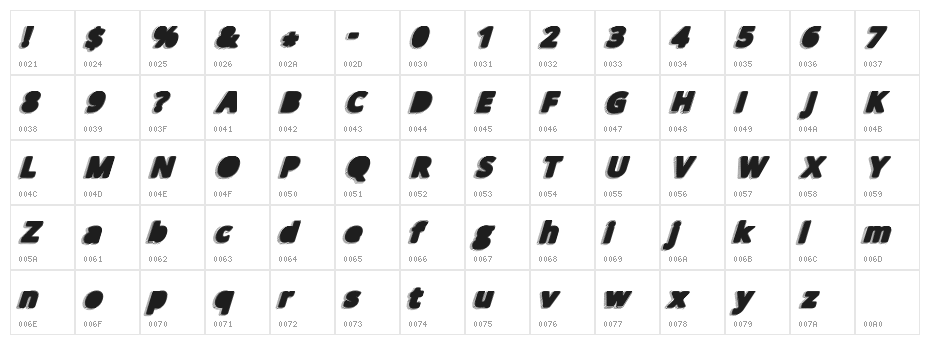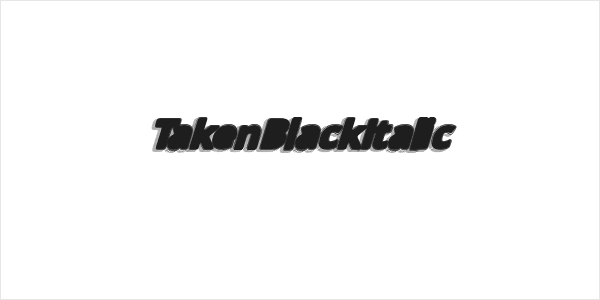
TakenBlackItalic Font
TakenBlackItalic Description
This font features a bold and dynamic style with a strong italic slant, giving it a sense of motion and energy. The characters are thick and robust, with a solid black fill that is complemented by a distinctive hatched shadow effect, adding depth and a three-dimensional appearance. The uppercase and lowercase letters maintain a consistent style, with rounded edges and a slightly condensed form that enhances readability while preserving a unique aesthetic. The numerals and special characters are designed to match the bold and energetic style of the alphabet, making this font suitable for attention-grabbing designs.